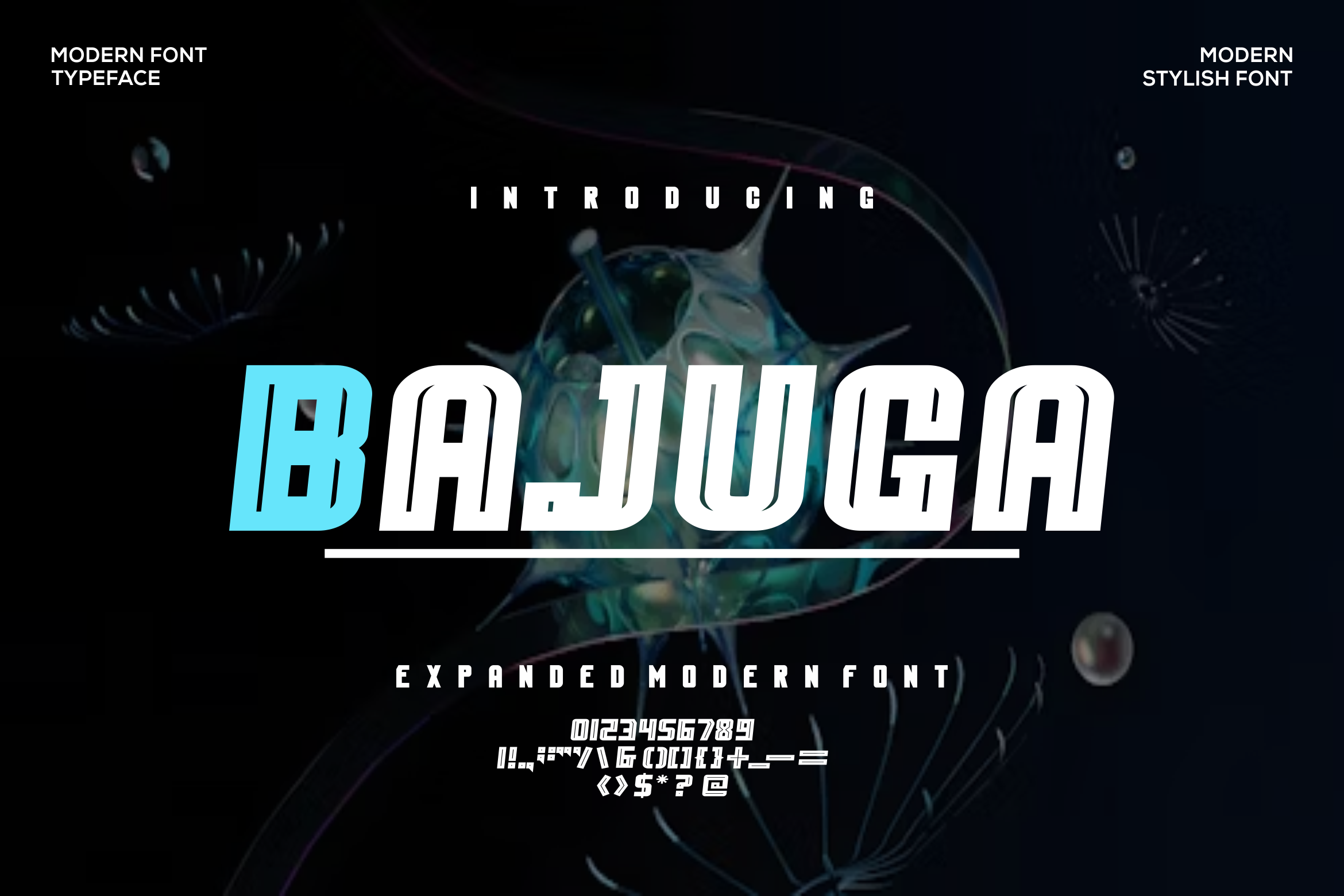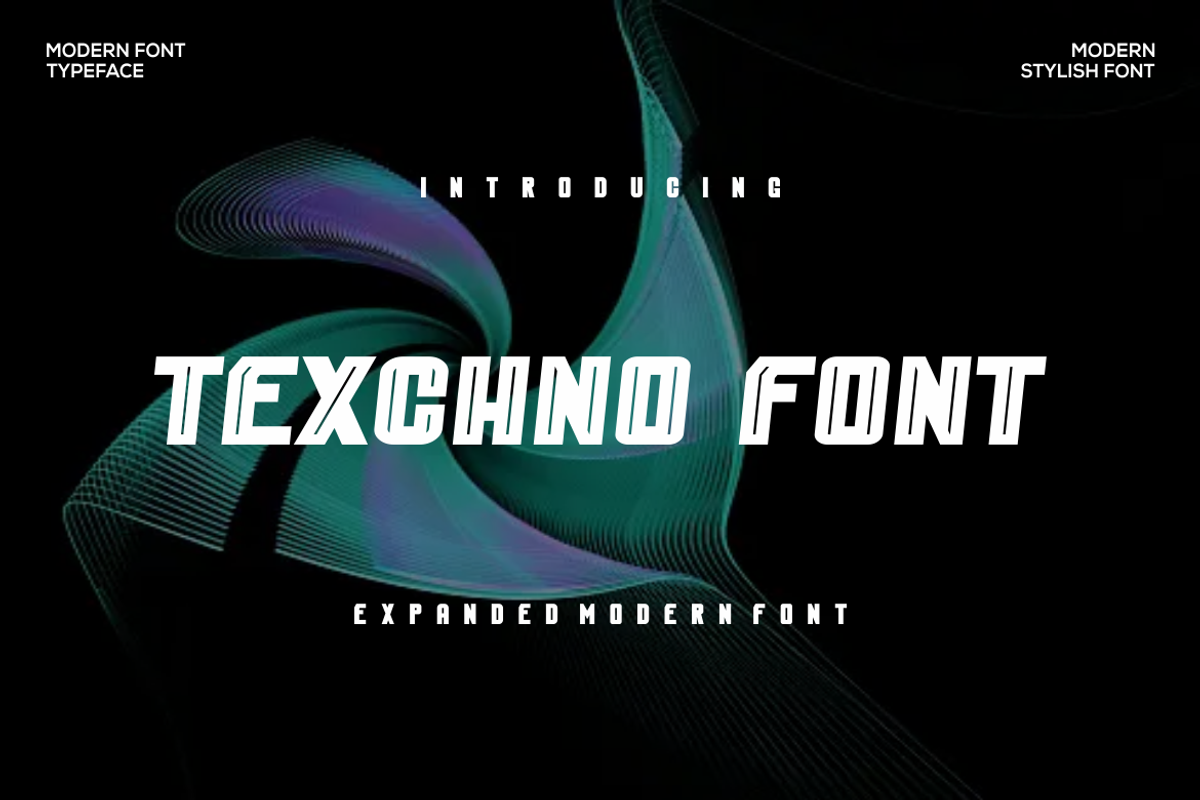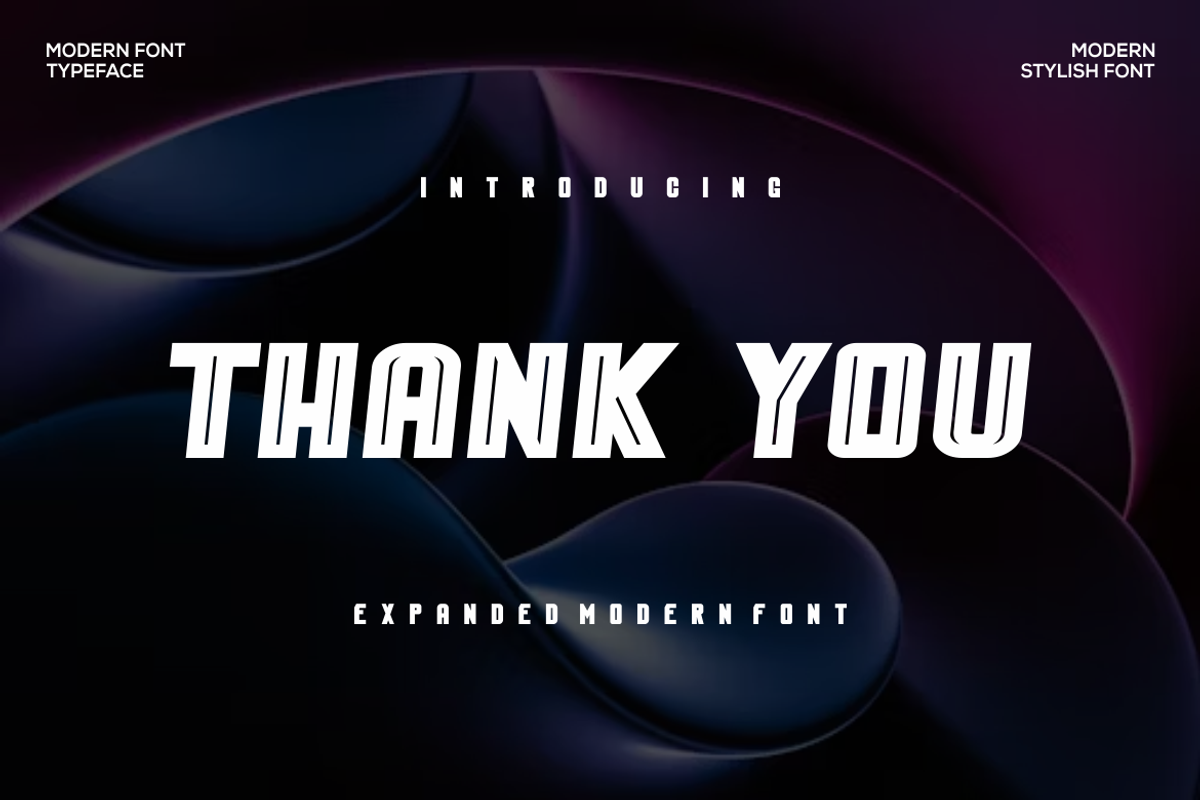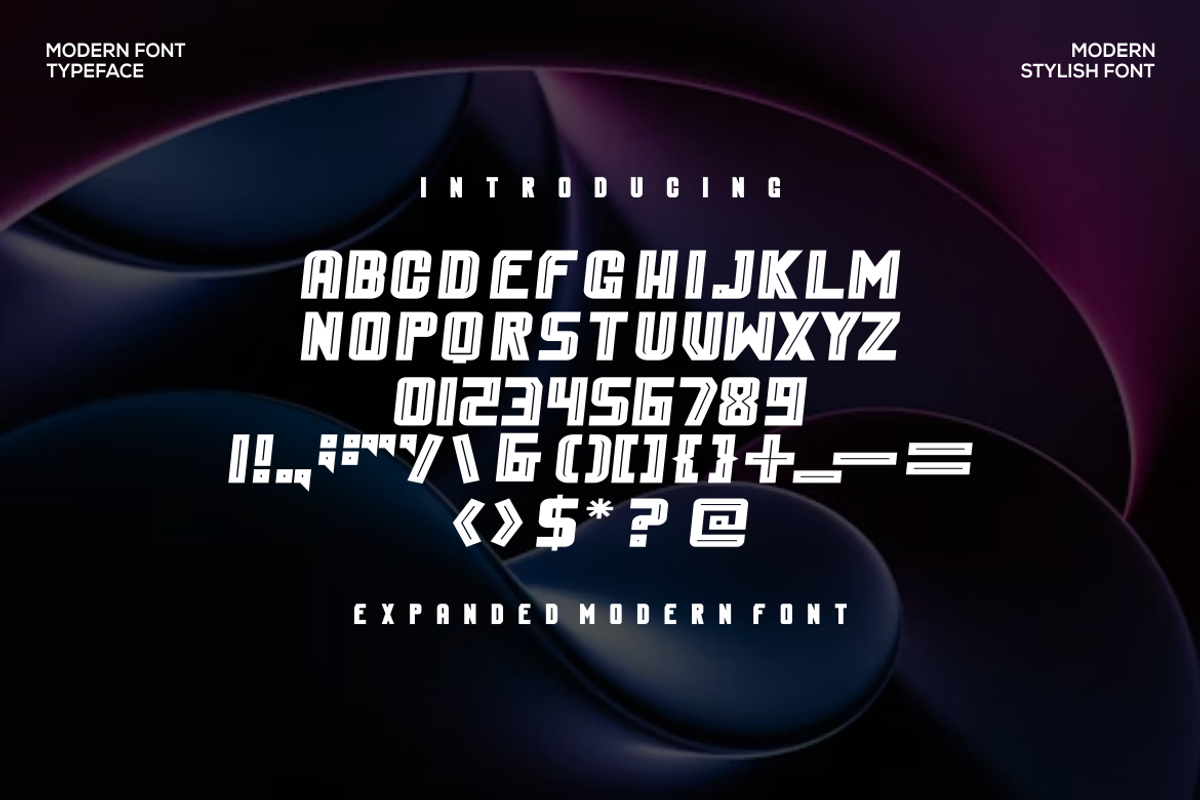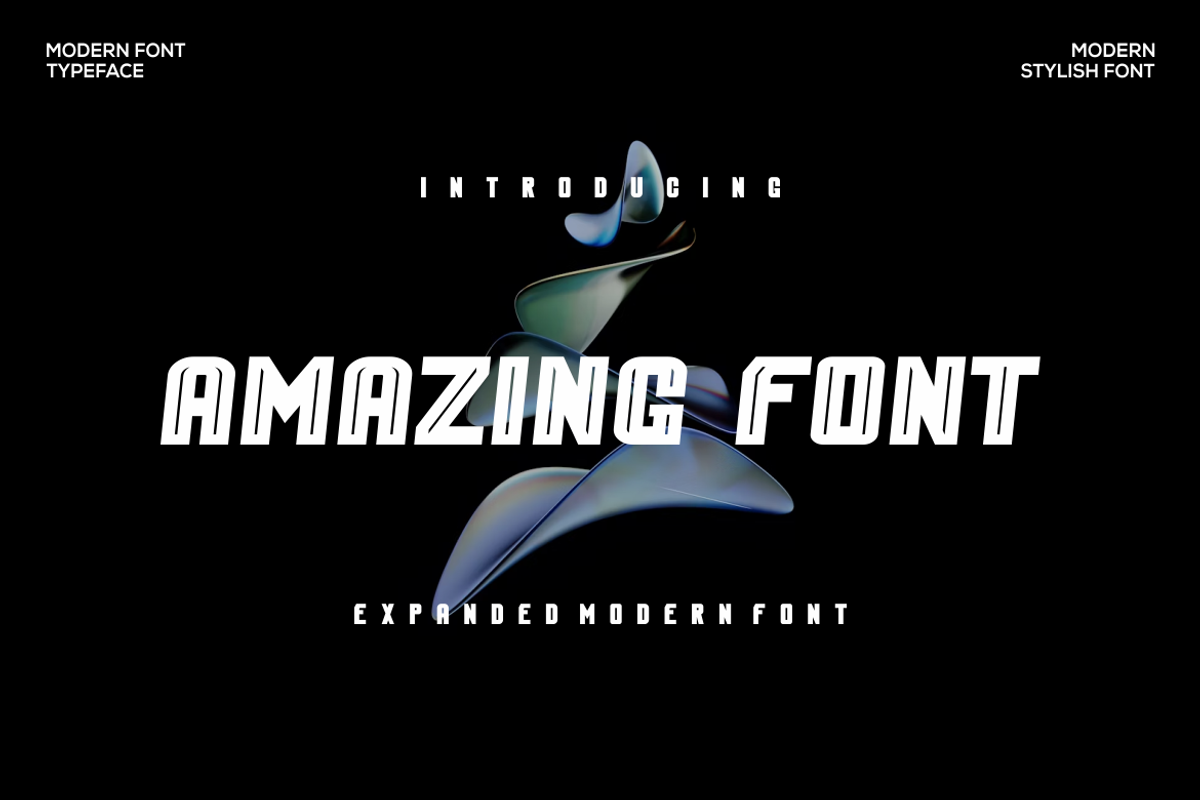
Bajuga Font
Presenting our new product Bajuga Font - Modern Font is a bold and authentic display font. This font is perfect for any branding project such as logos, t-shirt printing, creative products, and more. extraordinary in a variety of contexts.